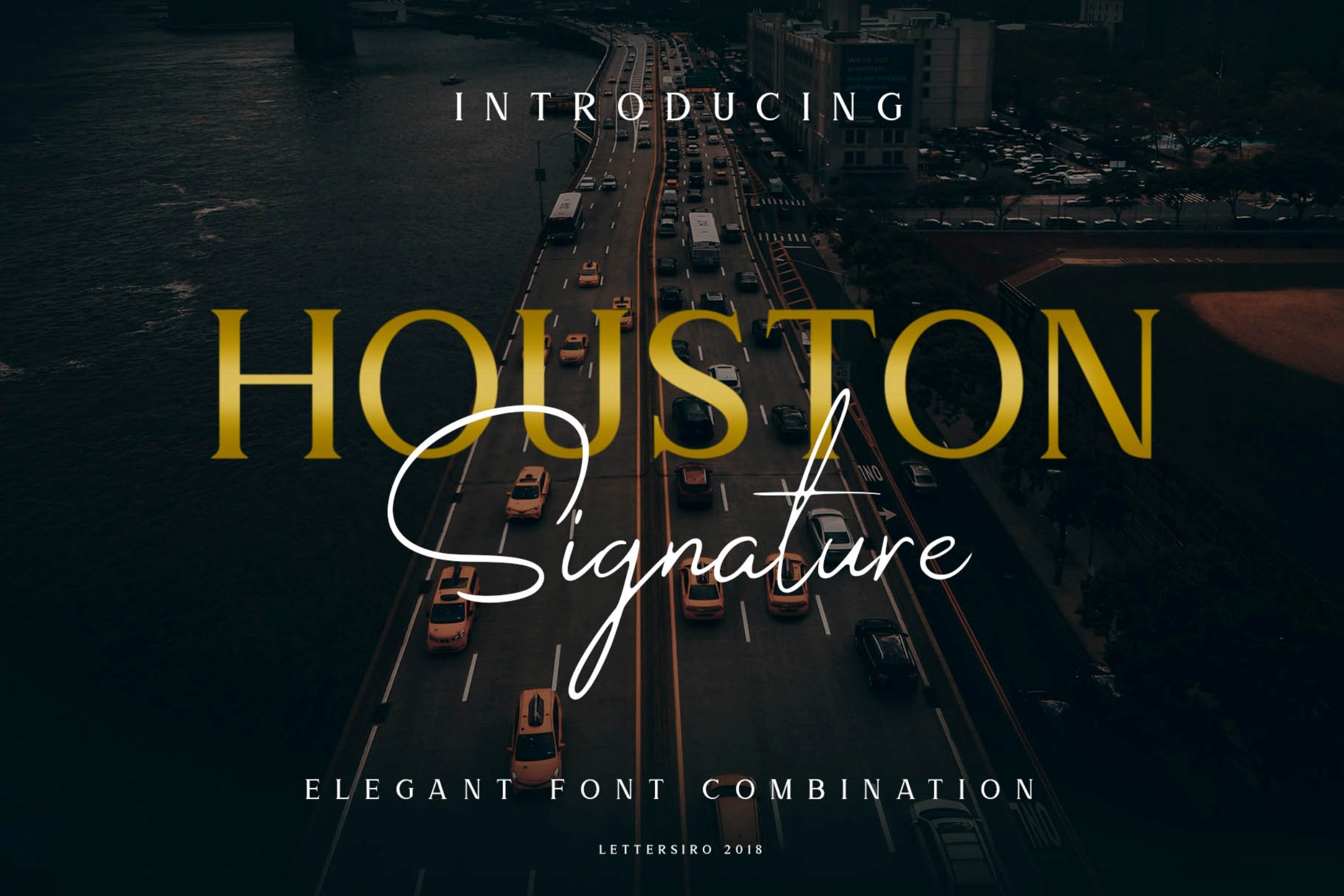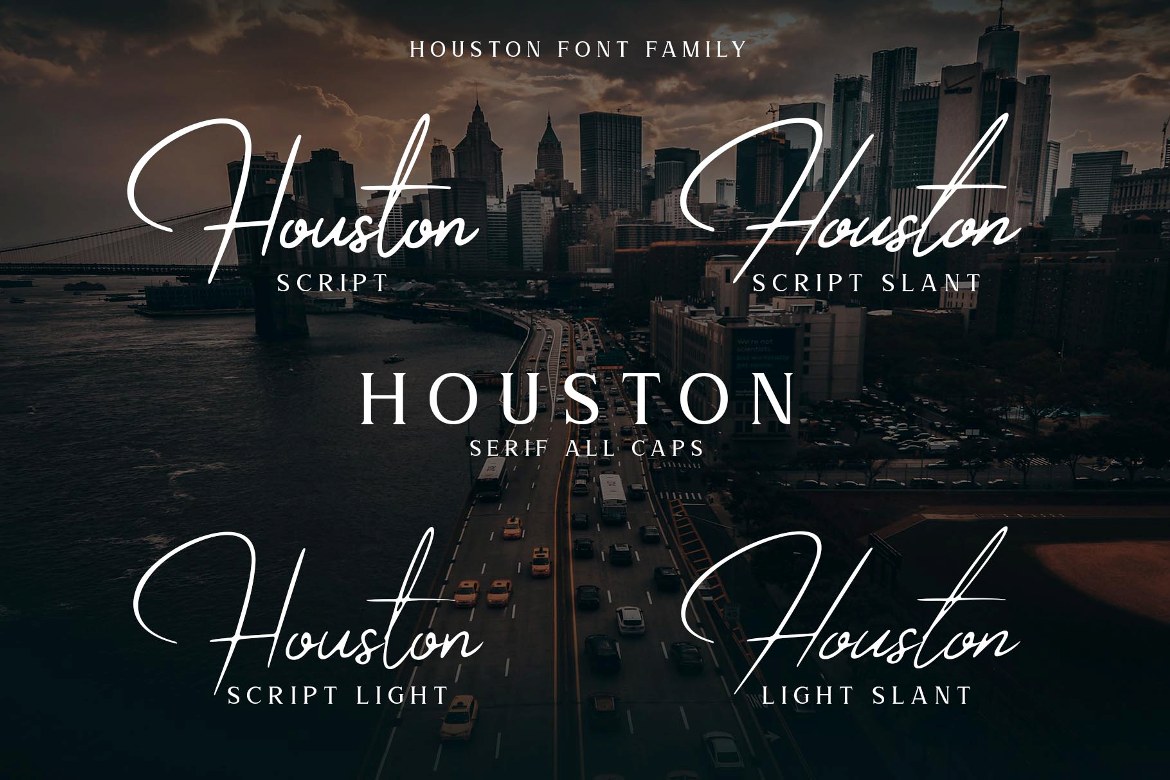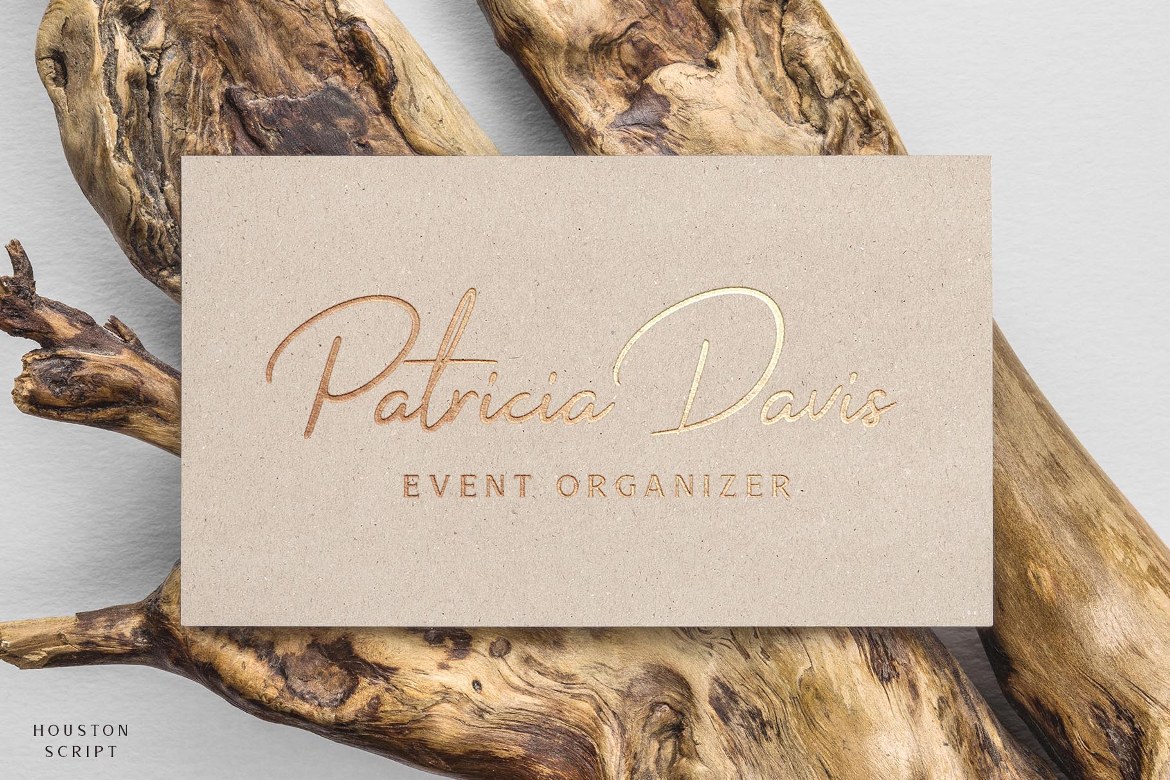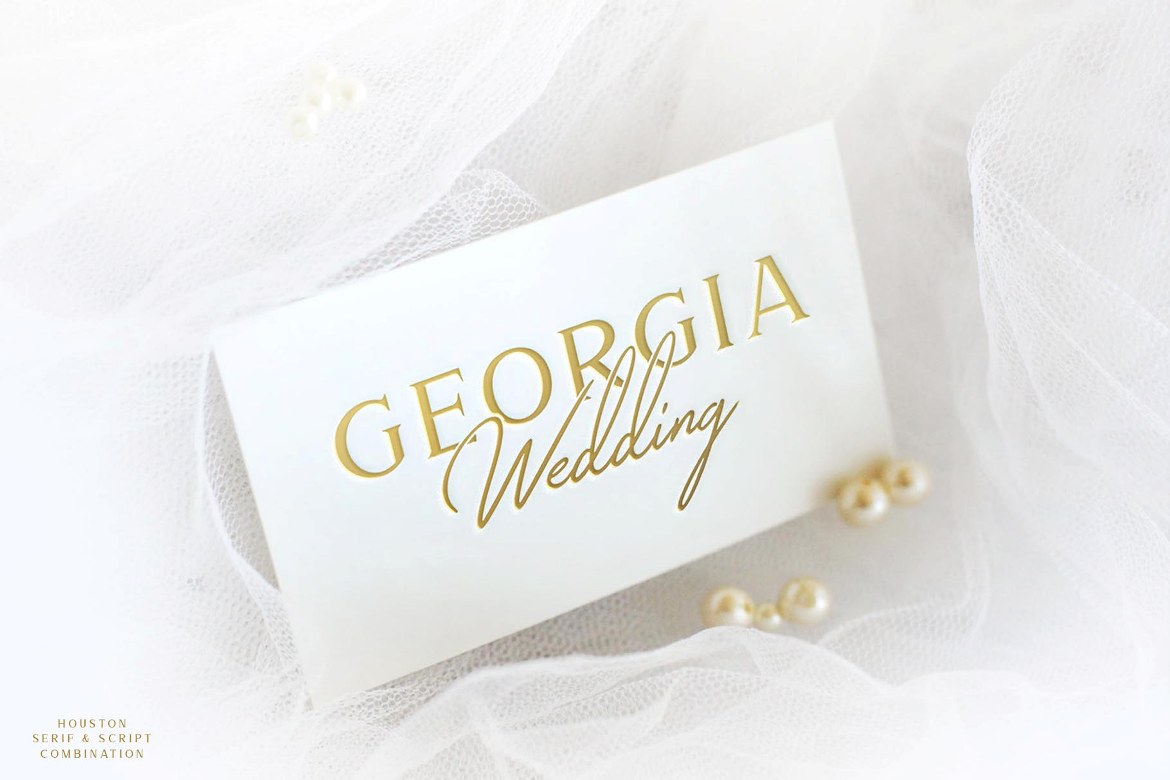
About Houston Font
Y’all can capture the beautiful paradox of Southern charm and urban modernity with Houston, a beautiful script and serif combination. Marrying both modern script styles with a classic wideset serif, Houston is a great font for a wide range of styles.